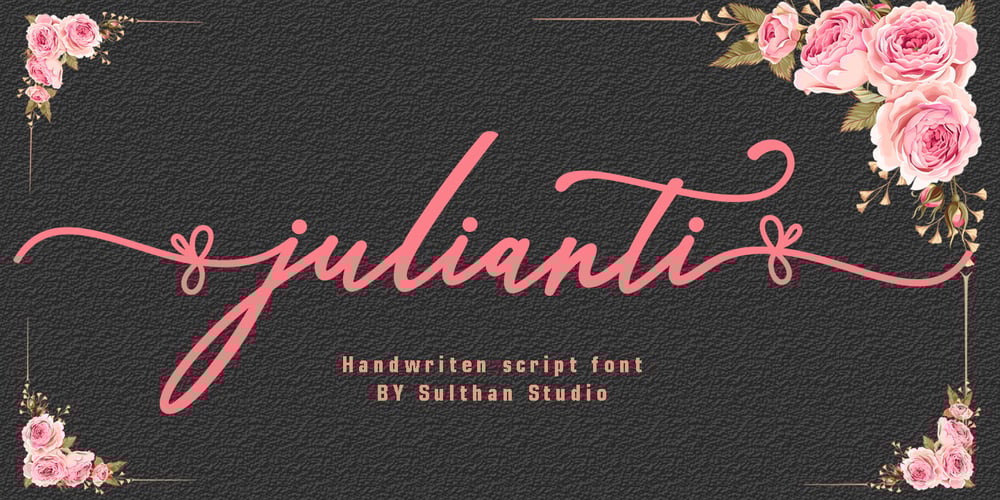
Julianti Font Family was designed by Nasrullah and published by Sulthan Studio. Julianti contains 1 styles and family package options. Julianti script new elegant font! This font was created specifically for those of you who need a touch of elegance, cute, fresh, to design your next project with perfect and amazing results.Julianti Script that is very beautiful and attractive, and is equipped with lines that are perfect for use for various purposes. Such as titles, signatures, logos, correspondence, wedding invitations, letterhead, sign boards, labels, bulletins, posters, badges, Branding, Greeting Cards, etc.Julianti Script is built with OpenType features and includes a beginning and an end. It comes with OpenType Stylistice, Initial, swash, ligatures and everything to add touches to your design and also support other languages 🙂